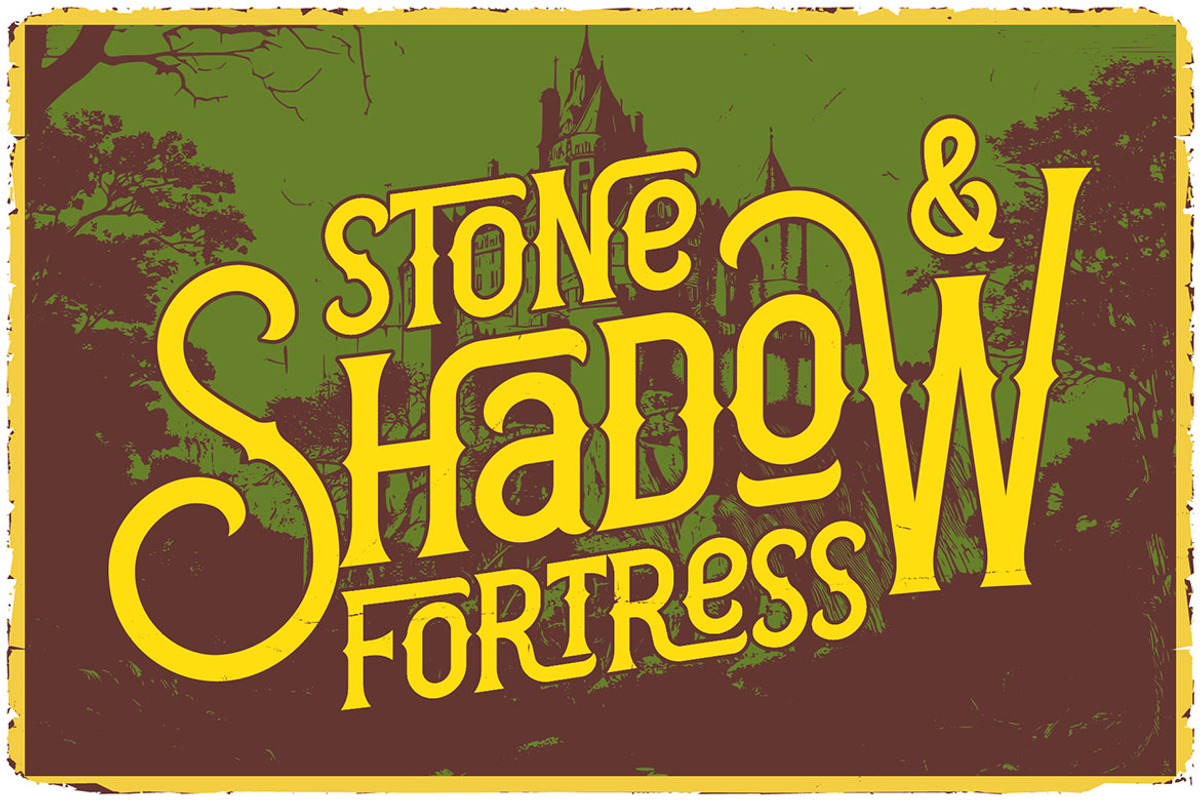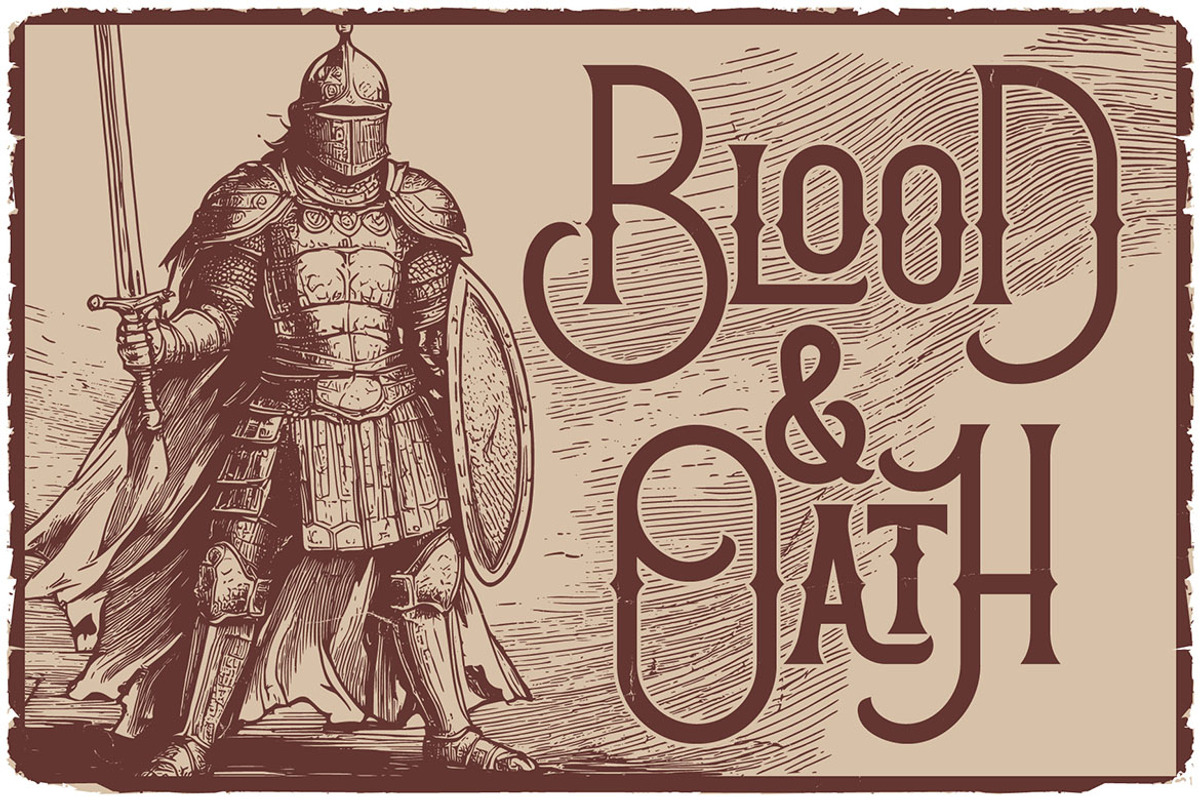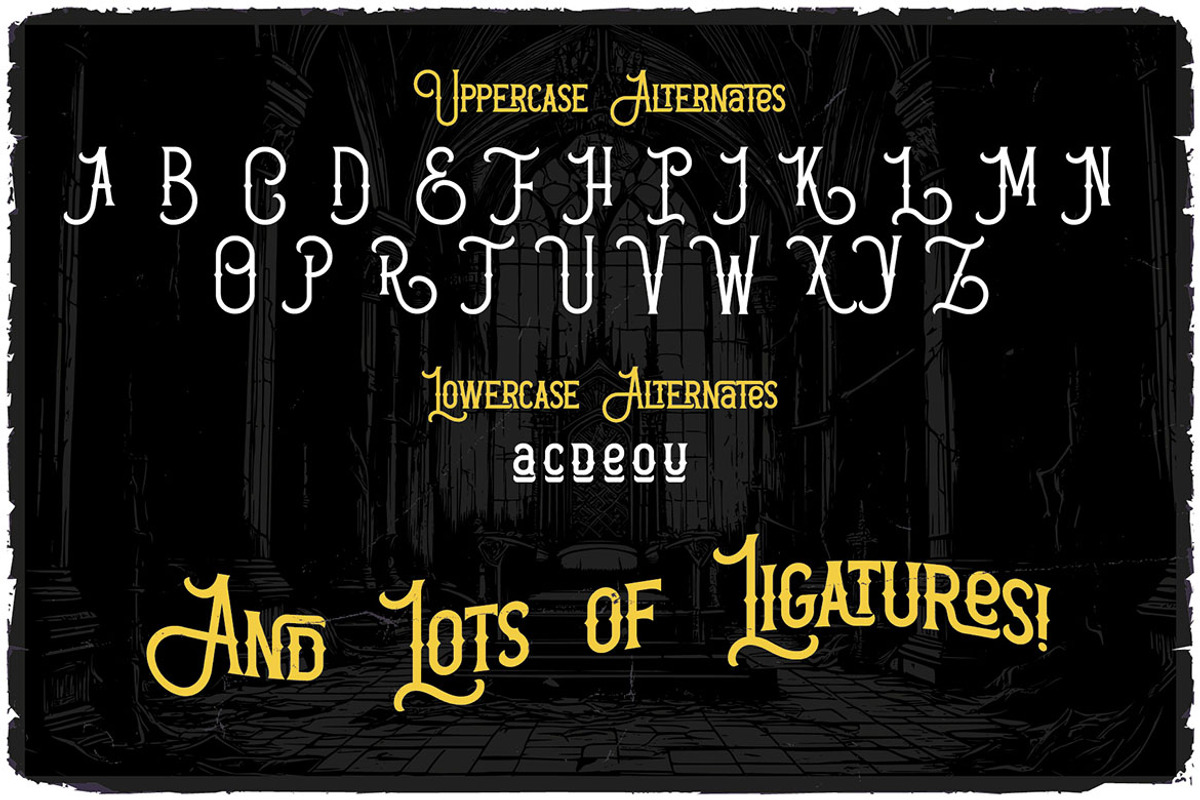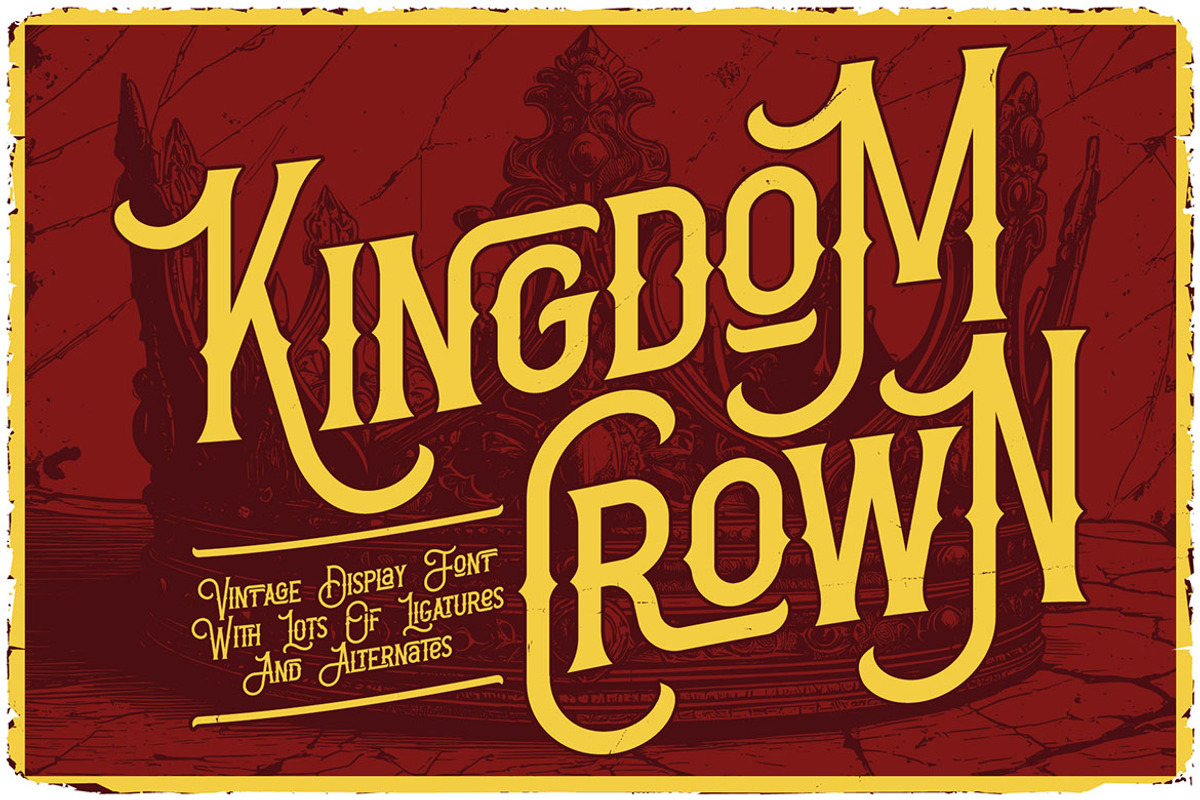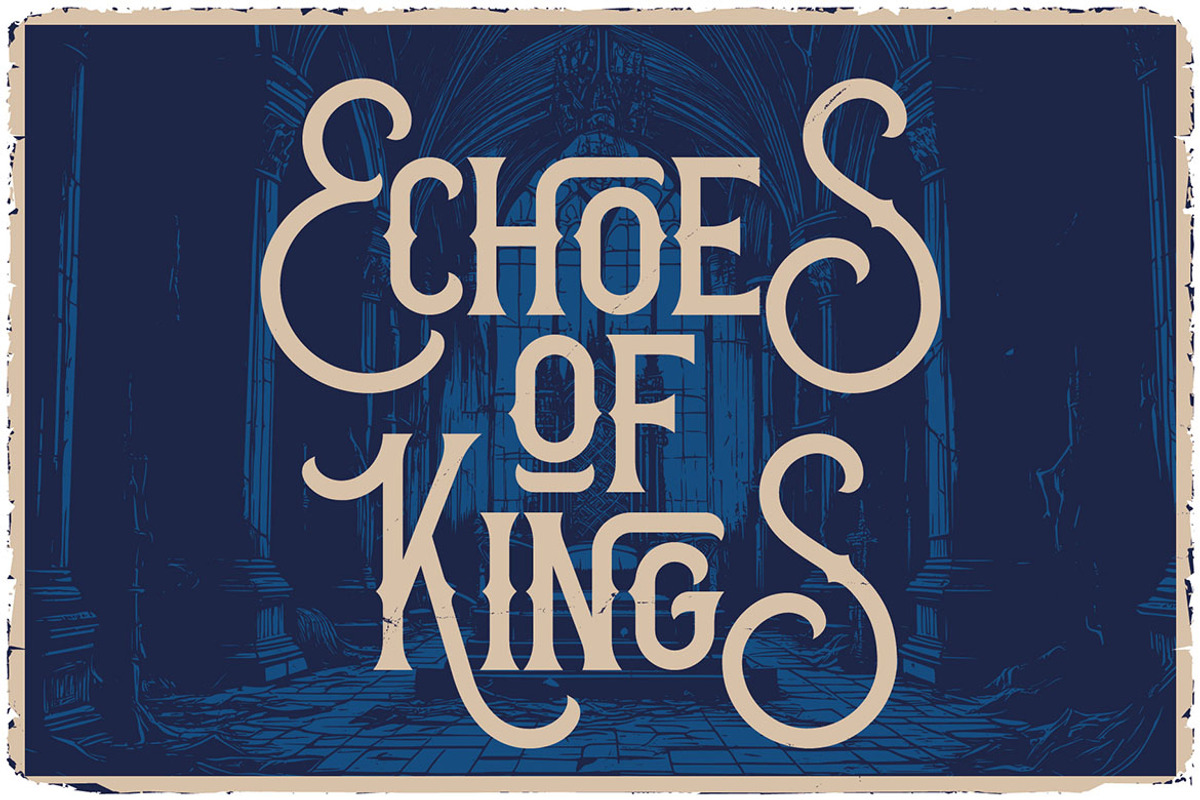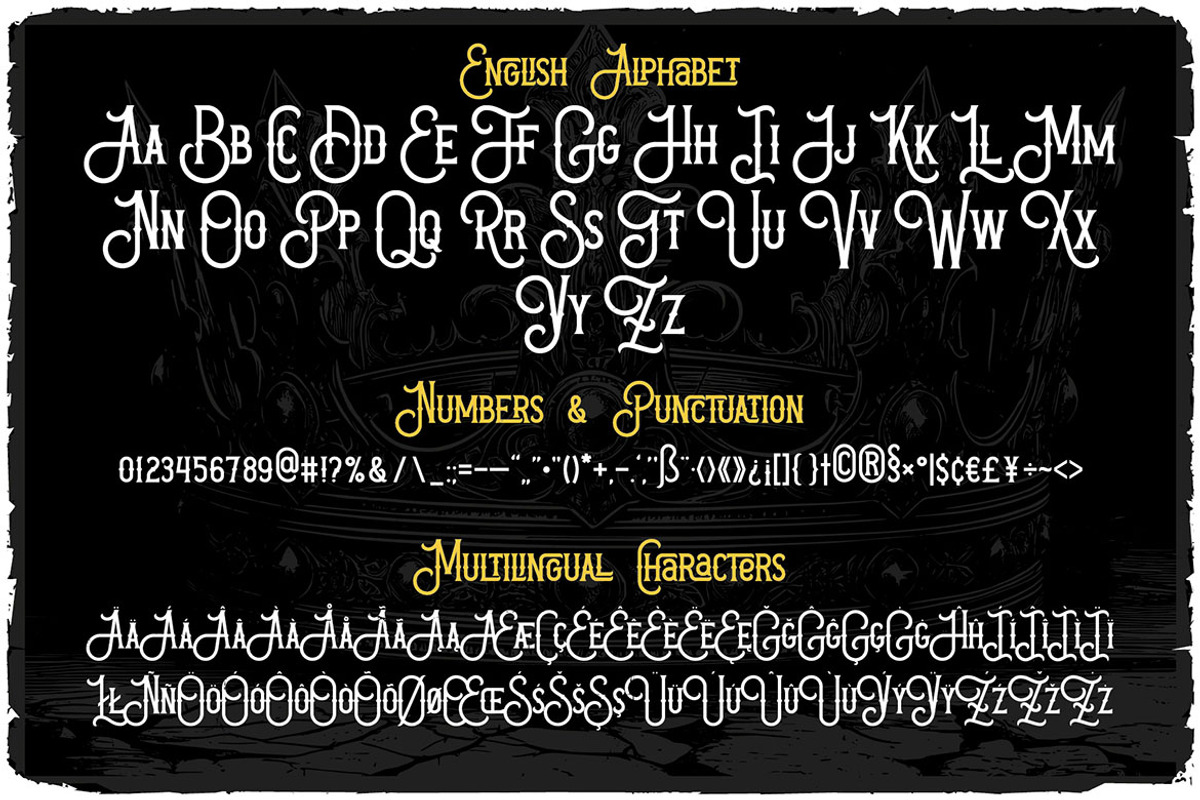
Kingdom Crown Vintage Label Font
Unique, decorative, elegant, retro, ligature, vintage & stylish label serif font. Comes with multilingual support, alternates & ligatures - great for your new logo, monogram or branding project.
- Multilingual support, alternates & ligatures
- Great for your new logo, monogram or branding project